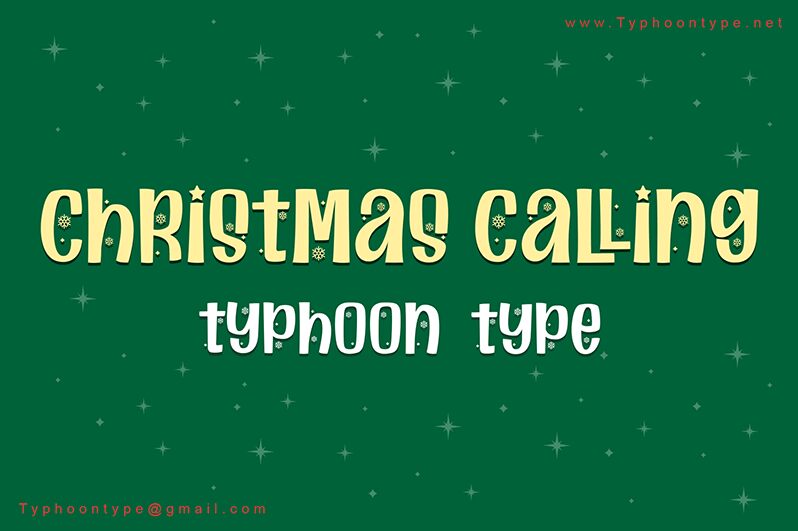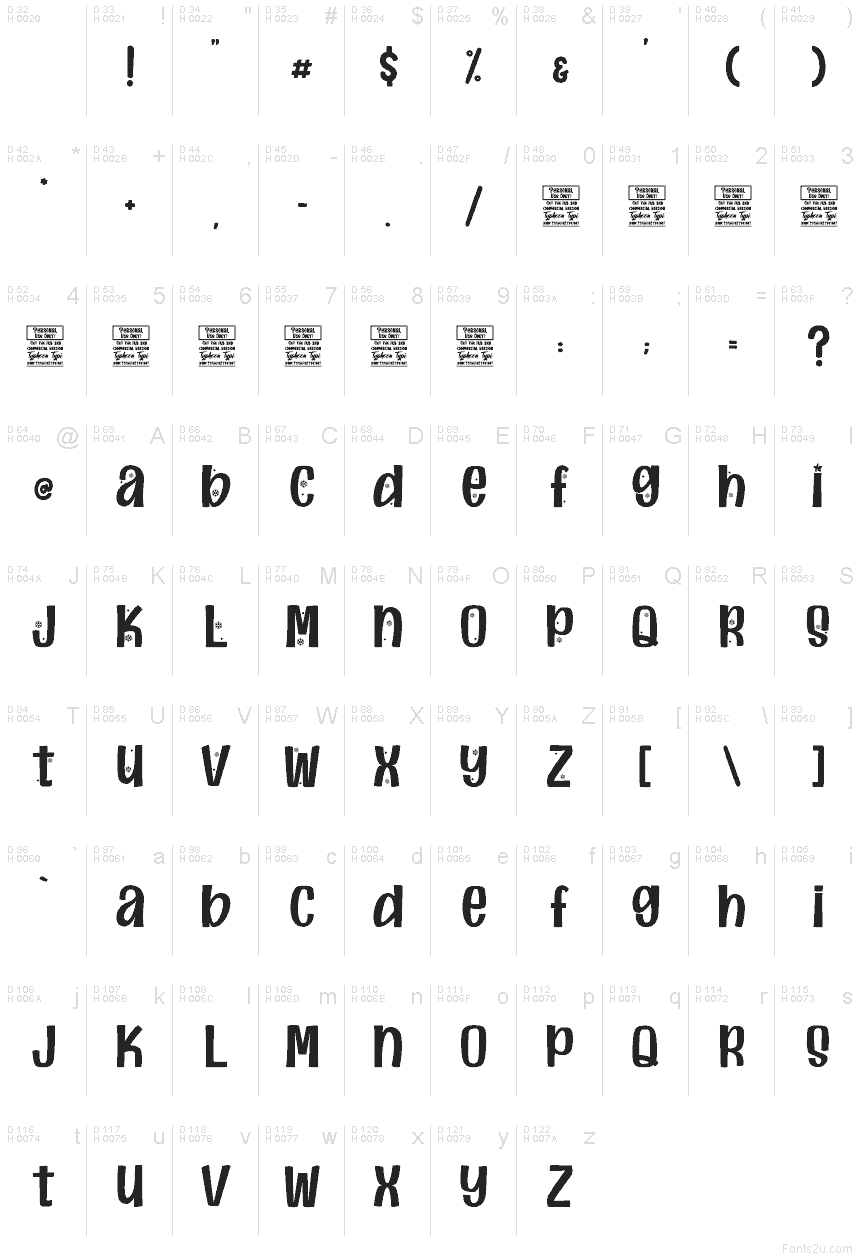
Christmas Calling font by Typhoon Type - Suthi Srisopha is a free Christmas holiday typeface that feels like it was doodled on a snowy shop window. Tall, narrow letters with a soft wobble give it a handwritten, storybook charm, while tiny snowflake accents sparkle inside some strokes. The texture is inky and slightly rough, like marker on craft paper, which keeps it warm and homey rather than polished and cold.
Using Christmas Calling, your text instantly looks like it belongs on stockings and gift wrap. This free font shines on greeting cards, party invitations, gift tags, kids’ crafts, social media posts, and festive packaging. Set it large for headlines so the snowflake details stay clear, and pair it with a simple rounded sans serif for body text to keep the holiday whimsy readable and balanced.